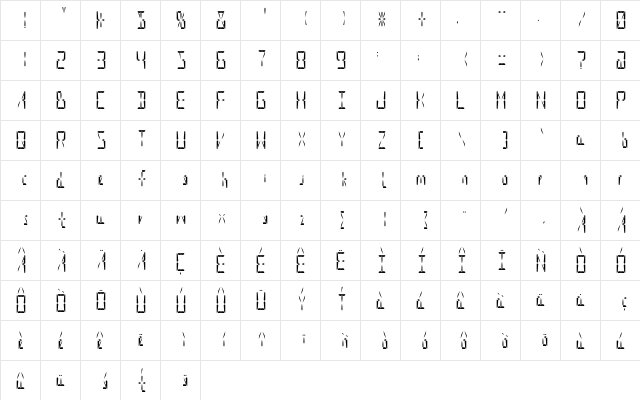
Supernova Display Regular
Design Context for Supernova Display Typeface
Supernova Display brings ornamental detail and strong personality to headlines and identities, where visual impact matters more than quiet functionality.
Font Pairing: Pair with a clean neutral sans-serif for body copy to let Supernova Display's character lead without overwhelming the composition.
Pro Tip: Treat Supernova Display as the centrepiece of your typographic hierarchy. One strong heading set in a decorative face can carry an entire layout.